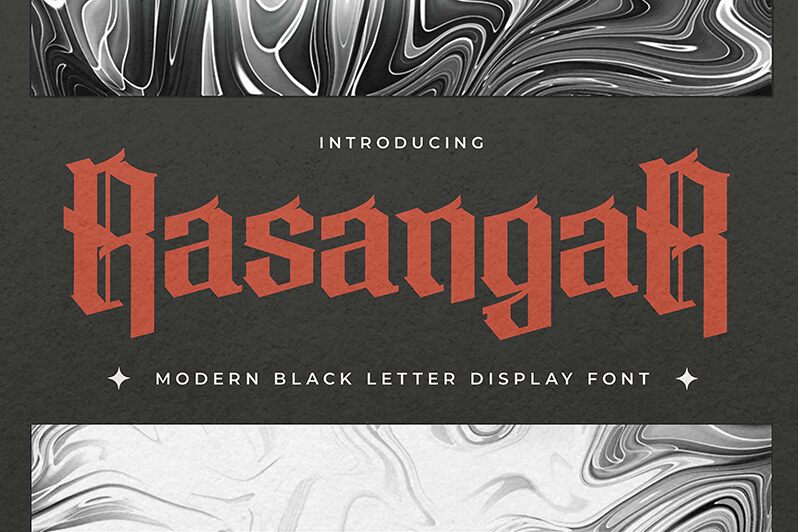
Rasangar
Rasangar font by Gassstype is a modern gothic typeface whose character shapes are inspired by medieval scripts. This classic lettering style usually comes with tendencies of being dramatic and slightly exaggerated which leads to expressive formations. The font takes after the above-described details and adds its own aspects thanks to sharp angles, ornate edges, and so forth.
Gothic fonts such as Rasangar work best for formal projects especially if they employ a darker or historical theme in any way. Examples include adventure movie posters, video game titles and artwork, book covers (horror stories), equipment branding, apparel designs (t-shirts), medieval restaurant menus etc.